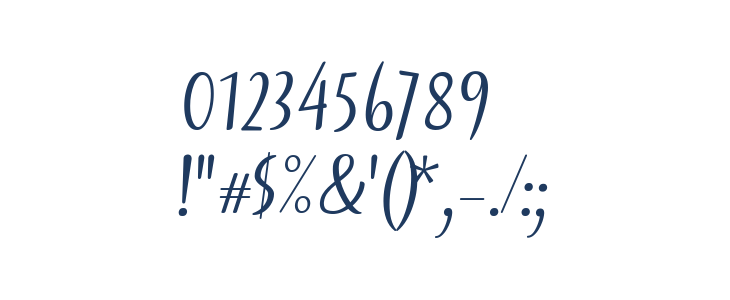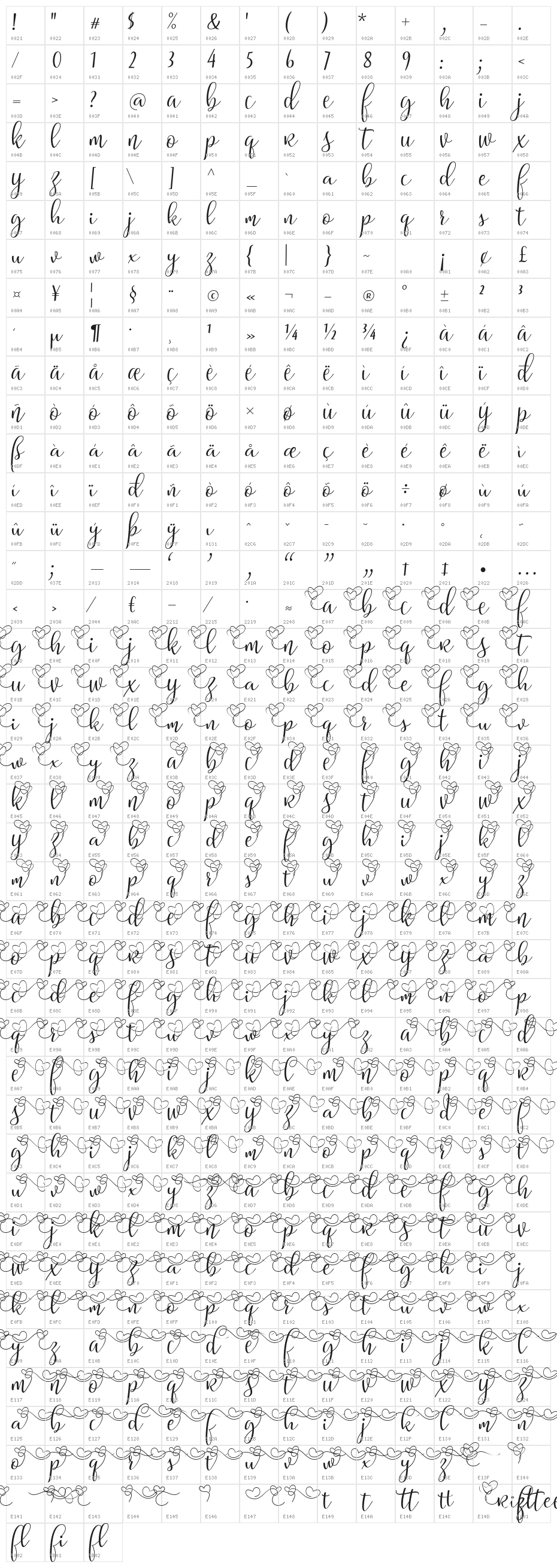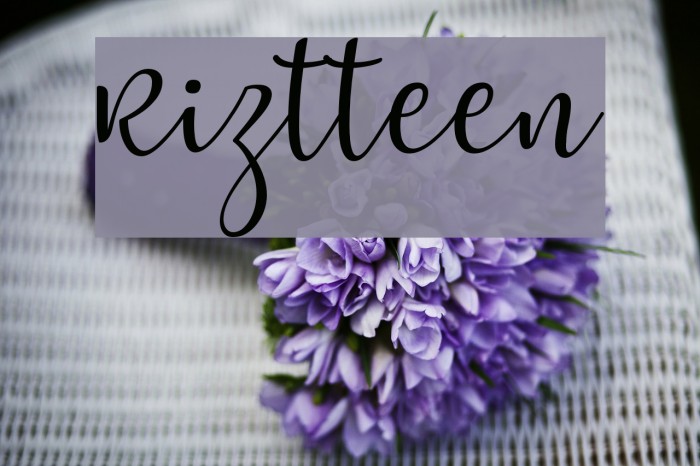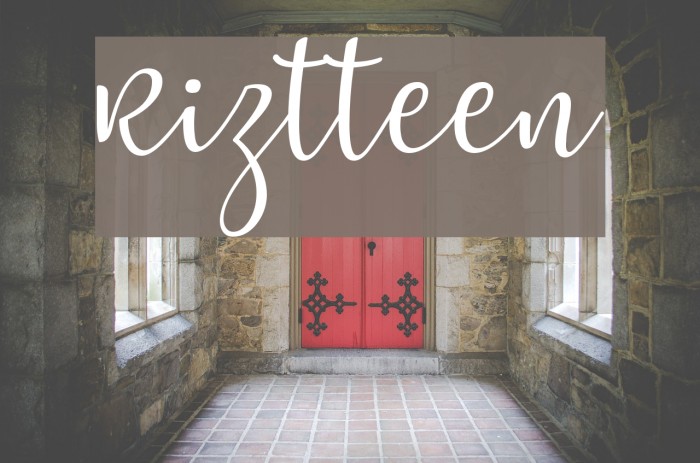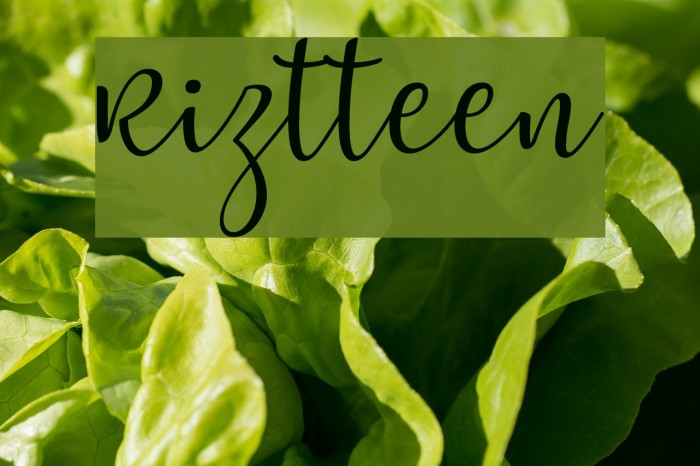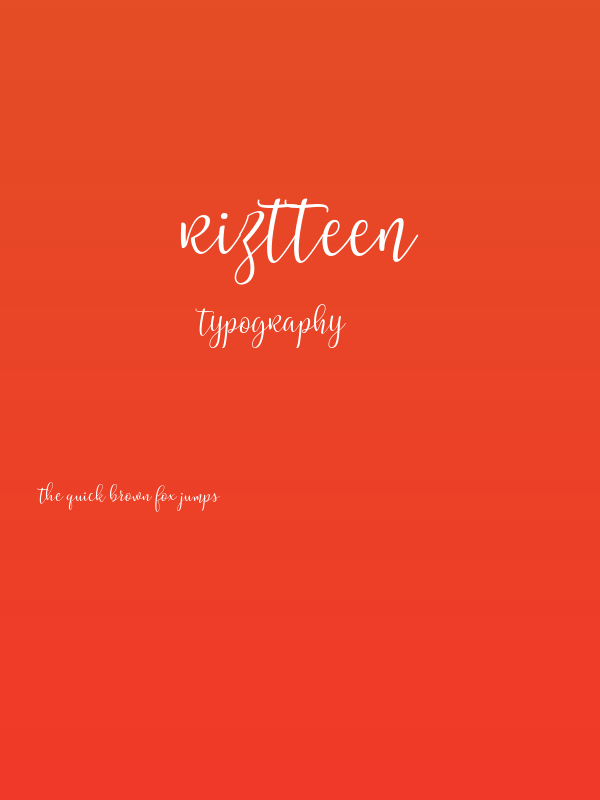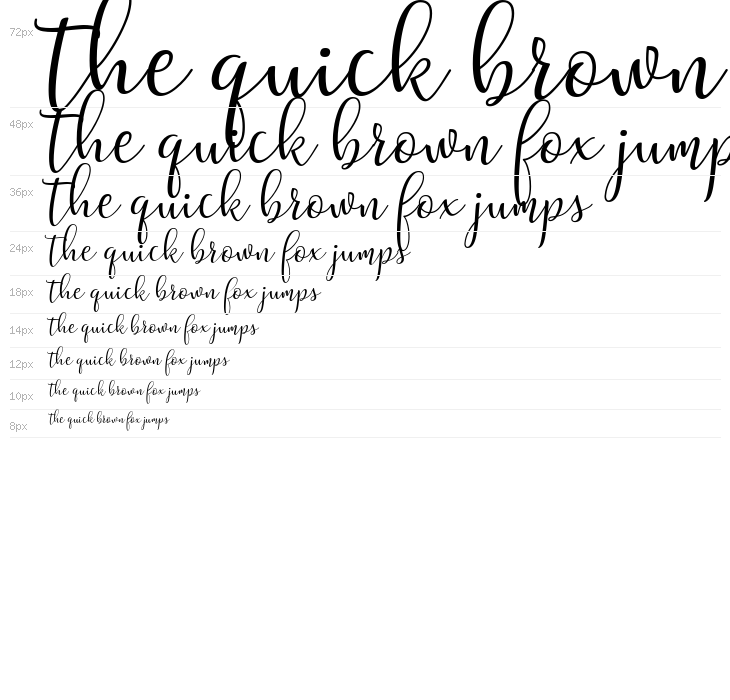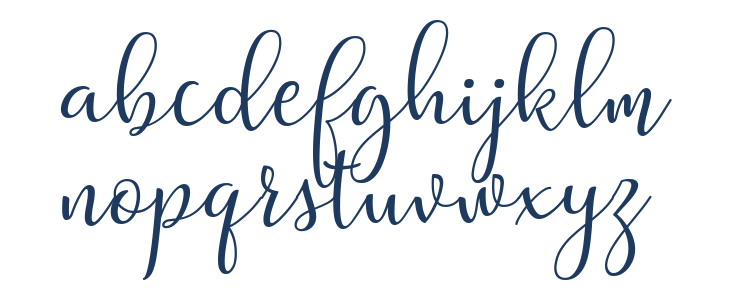
Riztteen Font
Riztteen Description
This font exudes a graceful and elegant script style, characterized by its flowing, cursive letterforms. The uppercase letters are slightly more formal, with sweeping ascenders and descenders that add a touch of sophistication. The lowercase letters maintain a consistent flow, enhancing readability while retaining an artistic flair. The numerals are distinct and slightly slanted, complementing the overall cursive theme. Special characters are thoughtfully designed to match the script's aesthetic, making it versatile for various applications. The font's overall appearance is both stylish and approachable, suitable for creative and formal projects alike.
| Proposed Projects | Ideal for wedding invitations, greeting cards, branding, and elegant packaging designs. |